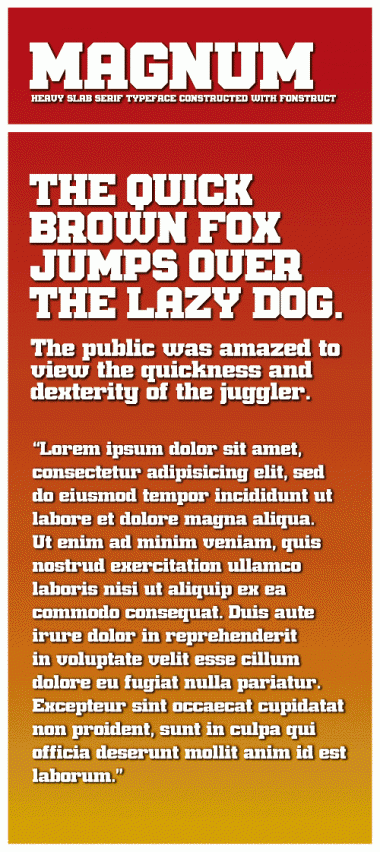
Strike!
Professional! :)
Very well balanced, I like it!
I would only consider adding a serif to the numeral "5", and rethink a couple of secondary glyphs (e.g. the "?" looks too thin, the "@" too small, the "&" a little awkward). Anyway they are just minor details.
@Em42 : Yes... you´re right...forgot the serif on "5" and have to rethink some glyphs... It will be redo in next days... ;)
OK, changed the "@", "&" and "?"...but on "5"...I think it works better without "serif" and match better with the other numbers...
Simply Slabulous!
Yup. One of the best Fontstruct slabs, for sure.